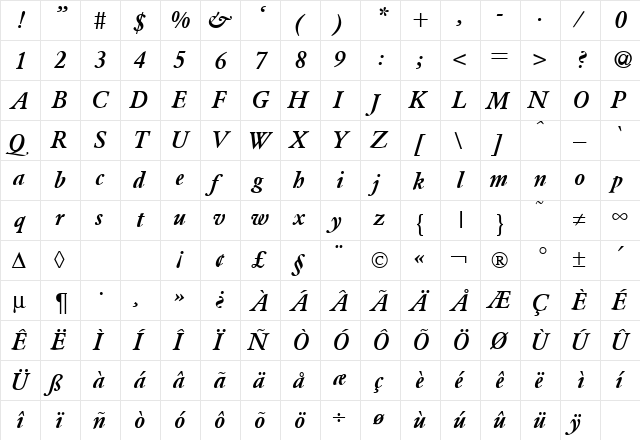
ClassicGaramond BoldItalic Font Preview
Design Context for ClassicGaramond Typeface
ClassicGaramond wears its vintage influences proudly, with letterforms that recall mid-century signage, classic packaging, and nostalgia-driven design. Its italic angle brings a sense of urgency and motion to the letterforms. Its bold stroke weight gives it real presence on the page.
Font Pairing: Combine ClassicGaramond with a simple slab or neutral sans — period-accurate companions reinforce the vintage feel without competing for attention.
Pro Tip: Use ClassicGaramond for headlines and pull quotes rather than body copy — its personality is best appreciated in short, focused bursts.